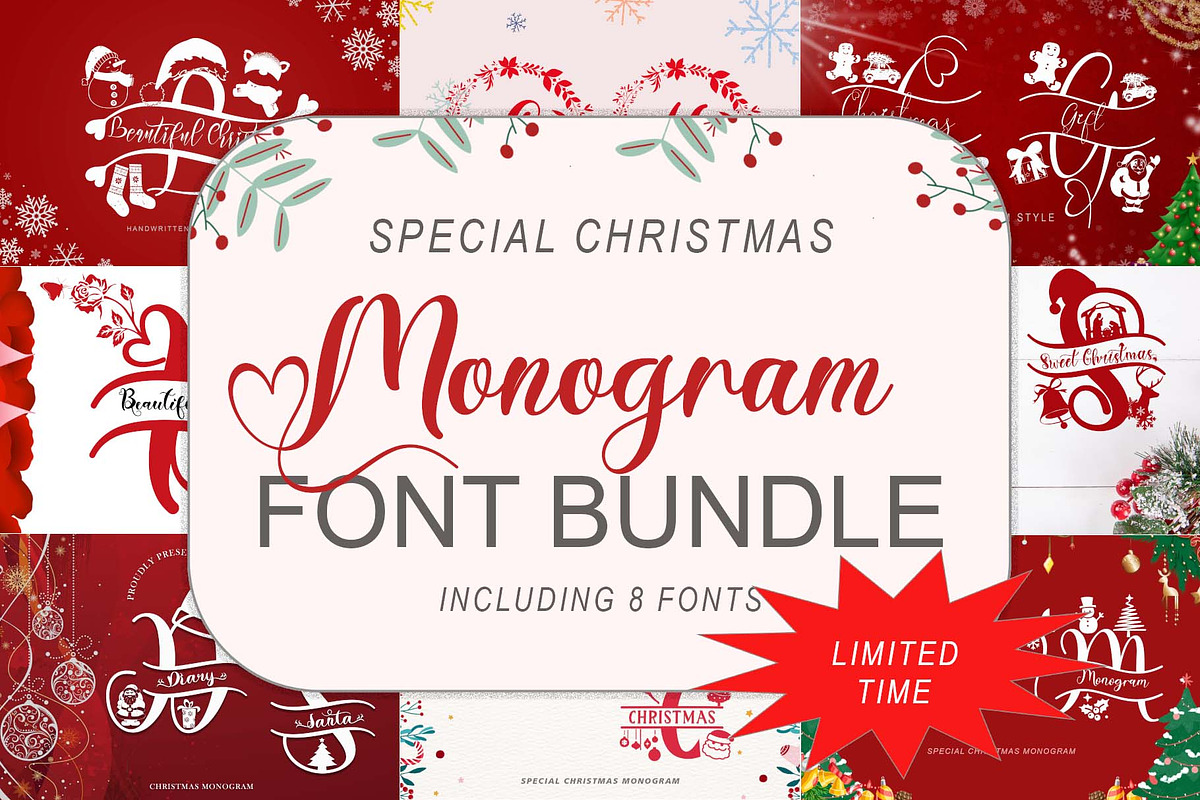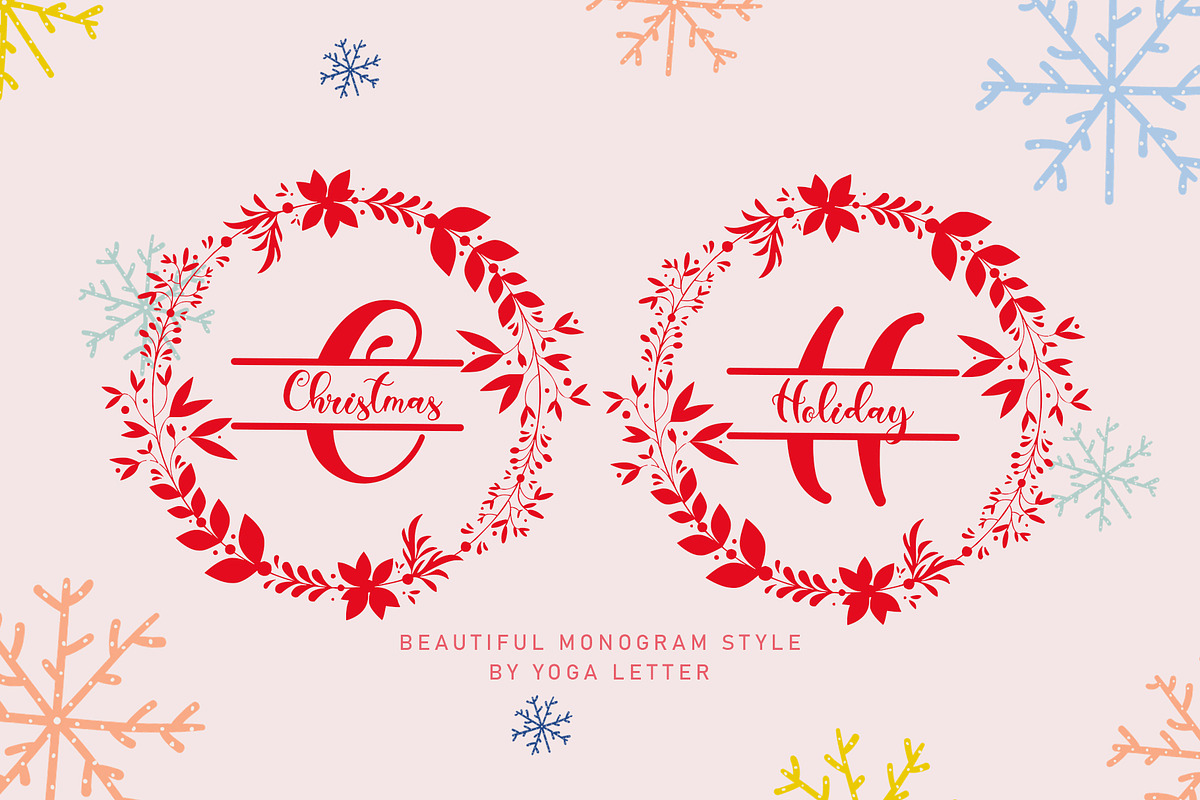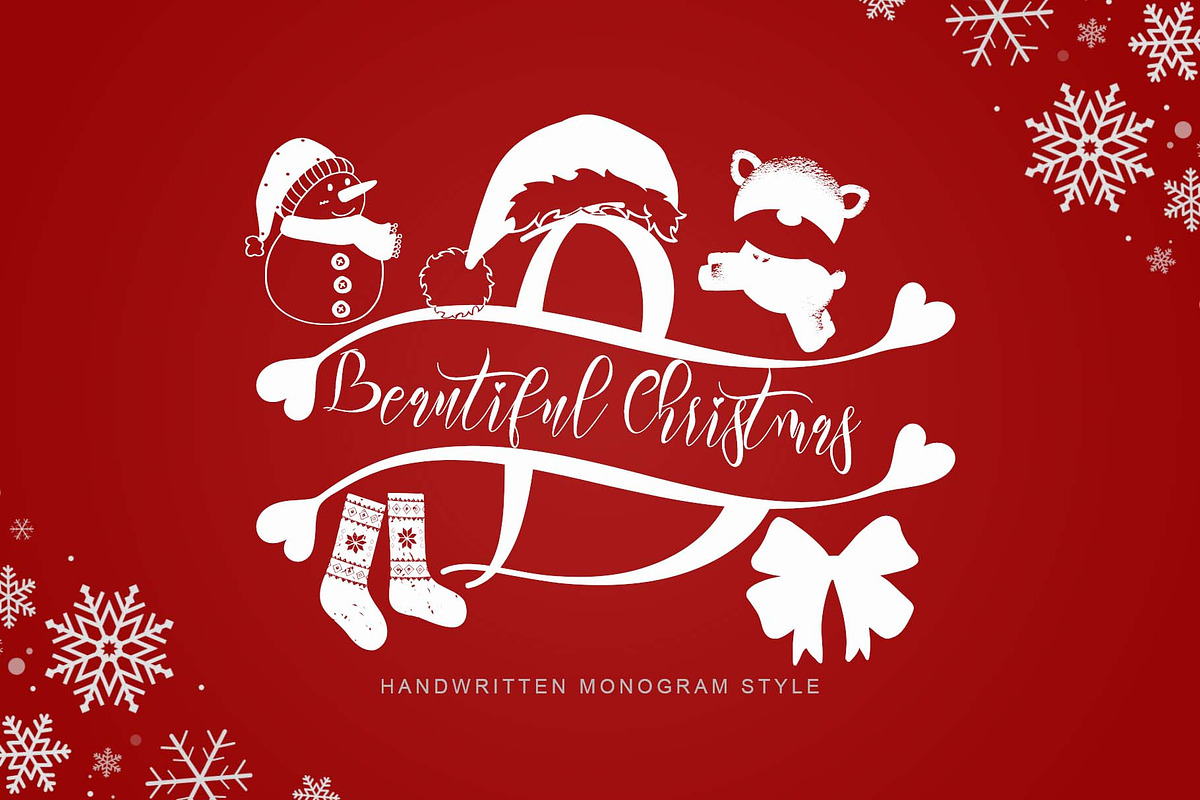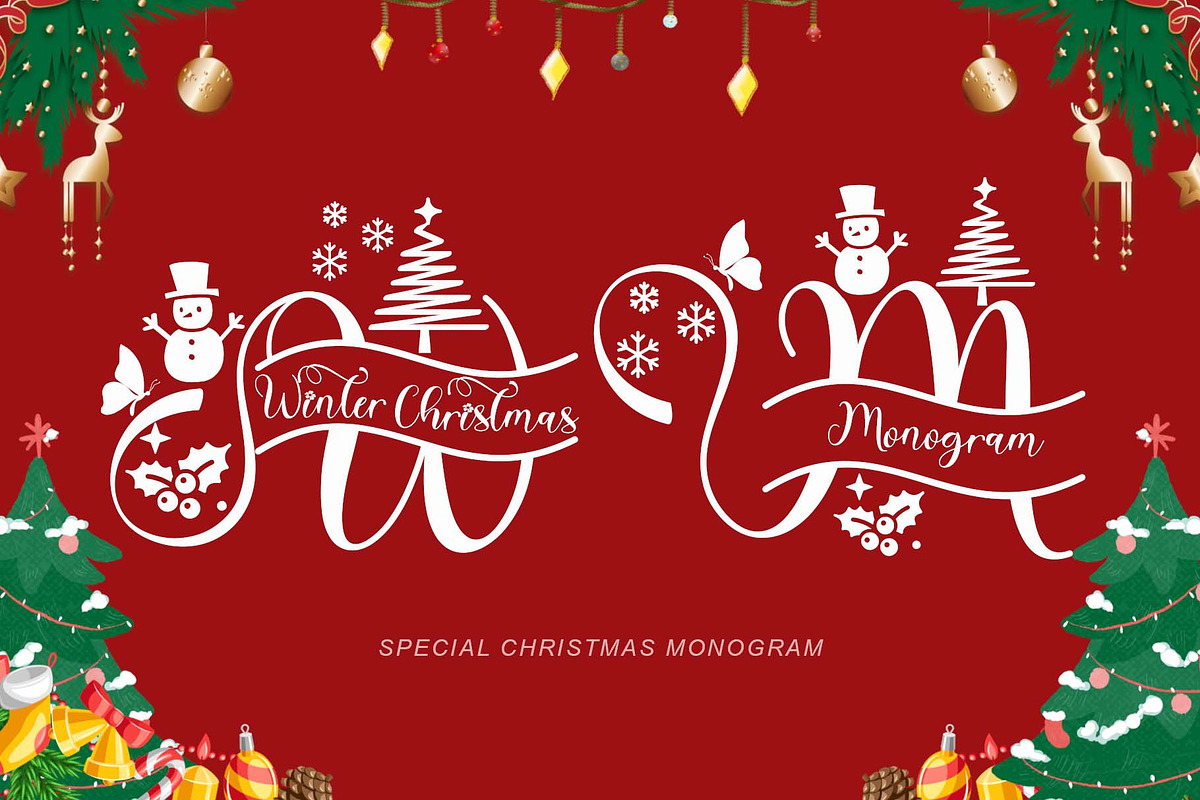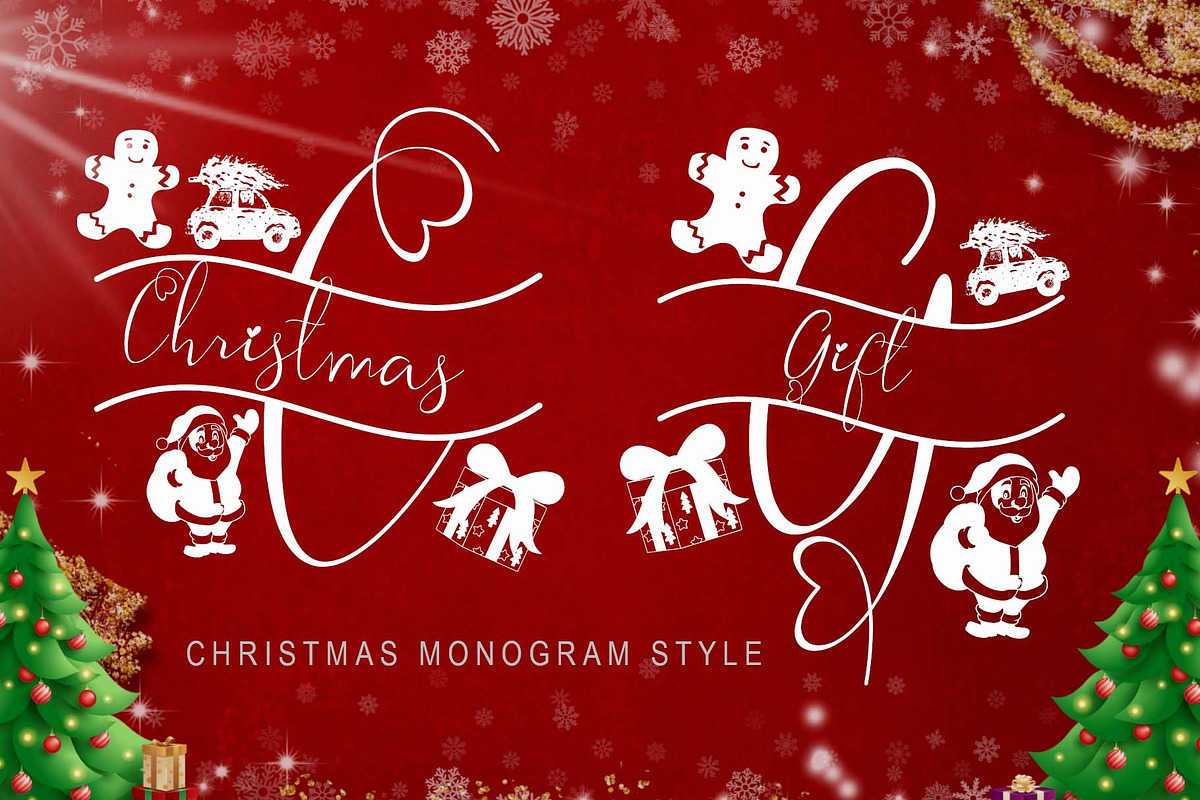
Special Christmas Monogram Bundle
This set including 8 Monogram Fonts !!!!!! Christmas Holiday Monogram Christmas Gift Monogram Beautiful Christmas Monogram Beautiful Monogram Winter Christmas Monogram Sweet Christmas Monogram Diary Santa Monogram Welcome Christmas Monogram
This bundle is perfect for a variety of projects such as wall art, street art, mural, christmas, designs, branding, logos, invitations, stationery, social media posts, advertisements, product packaging, product designs, labels, photography, halloween and others.